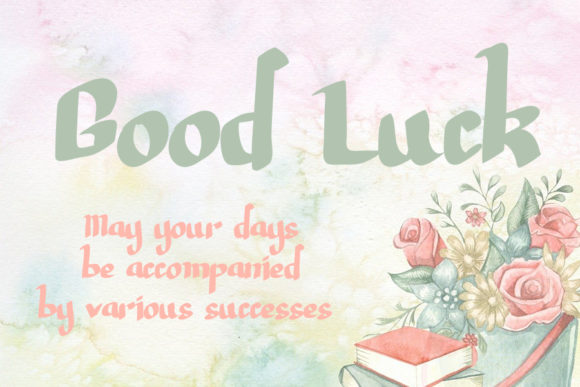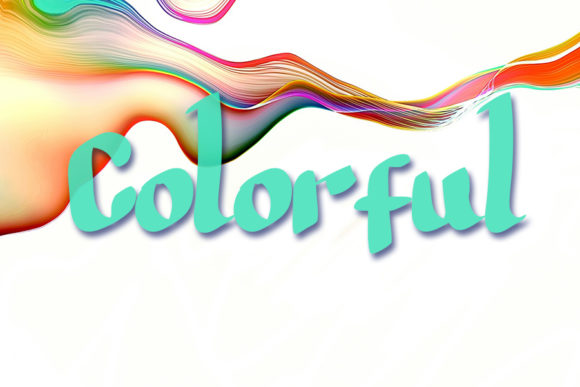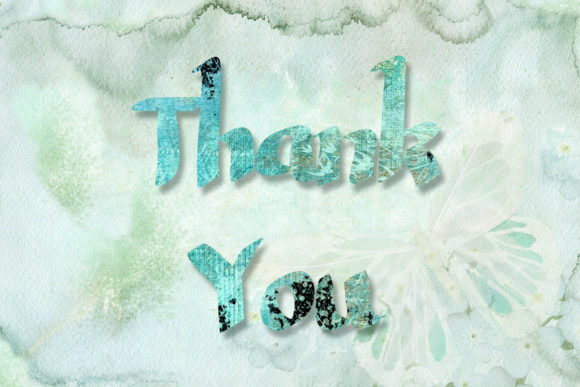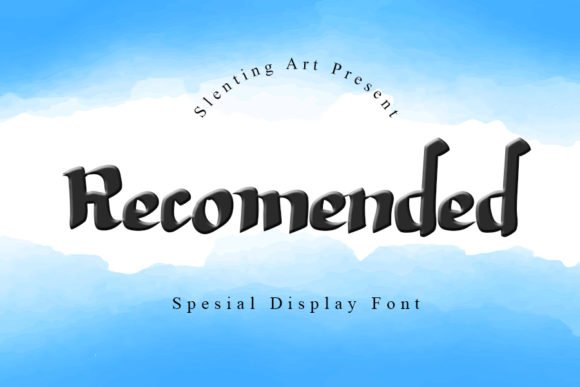
Introduction to Recomended Font
Recomended is a beautiful and refined script font.
👤 Author Slenting Art
It has a classy, elegant and modern look that can be used for logos, branding, invitations, stationery, wedding designs, social media posts, and much more .